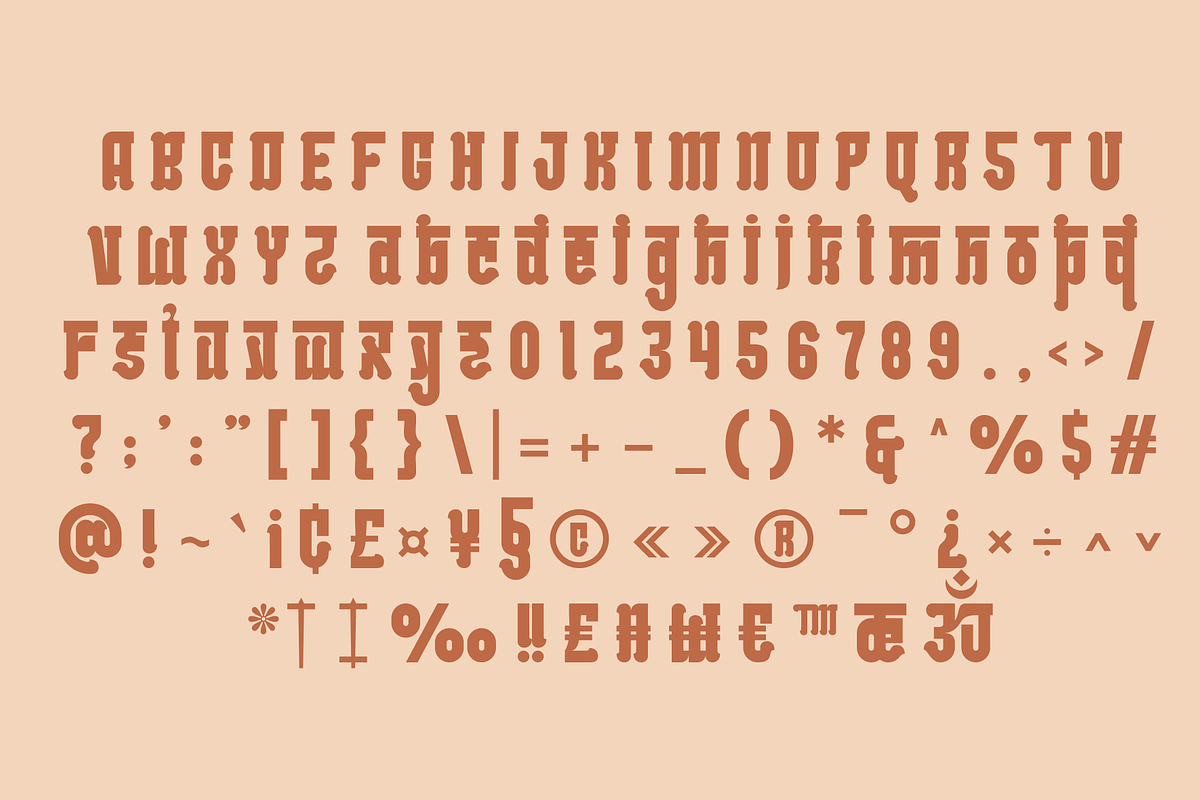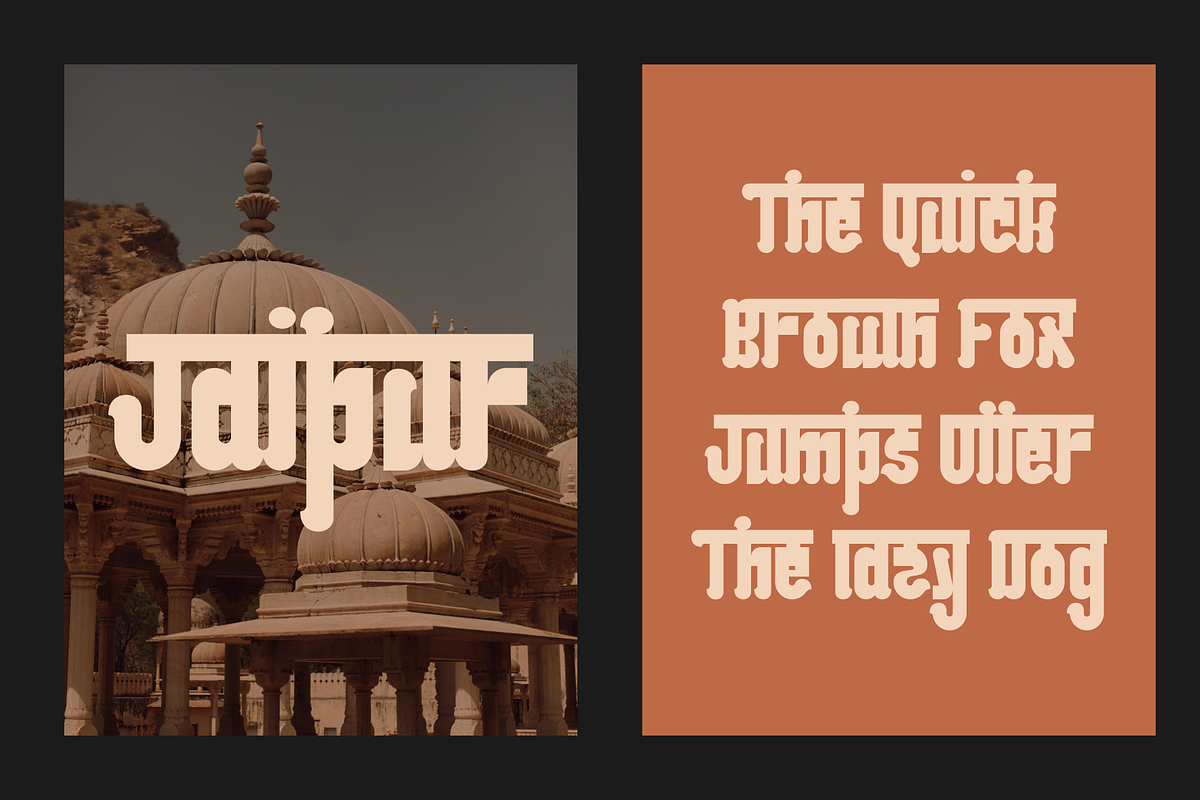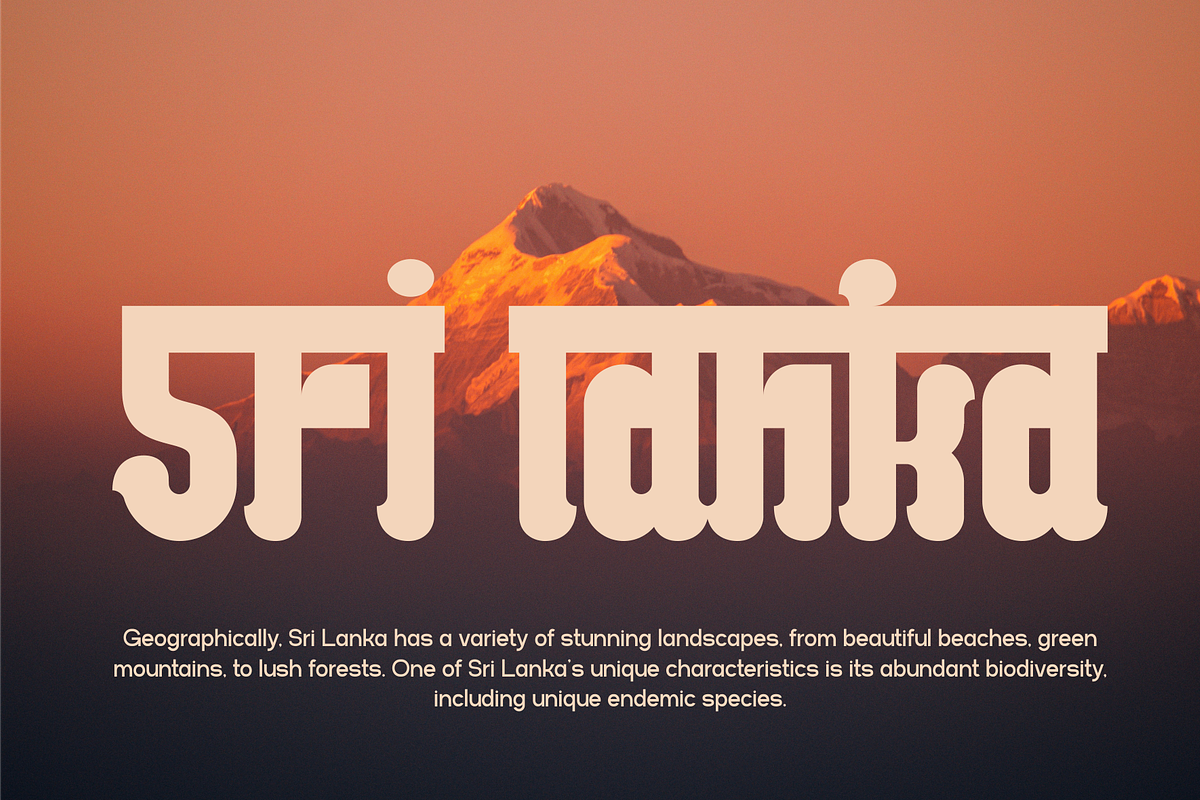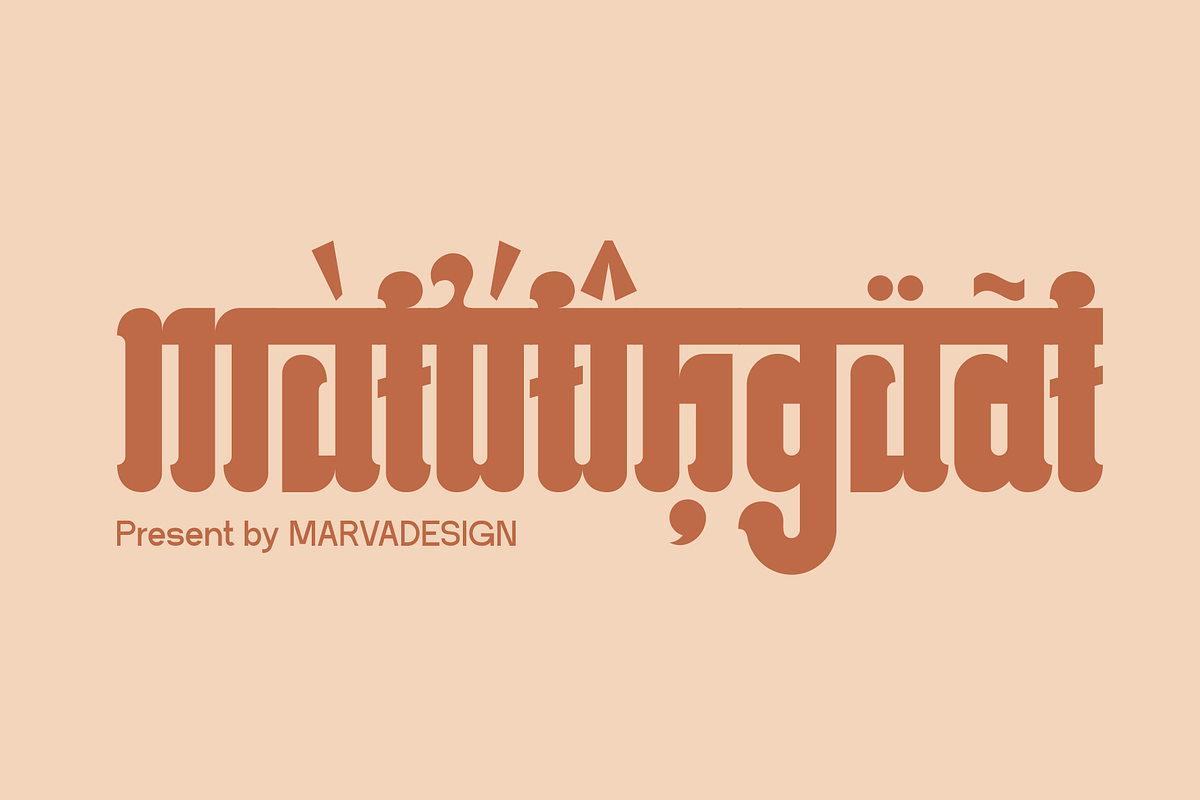
Mahatie - Traditional Hindi
Mahatie This font uses English in a bold bold style usually featuring a blend of classic Indian script aesthetics with modern typographic elements. The font features ornate details inspired by traditional Indian calligraphy, while combining the boldness and conciseness characteristics of the condensed style. The strokes in such fonts are usually bold and defined, thereby improving readability even at smaller sizes. They may include intricate embellishments and embellishments reminiscent of Indian motifs, adding a touch of cultural richness to the typography.